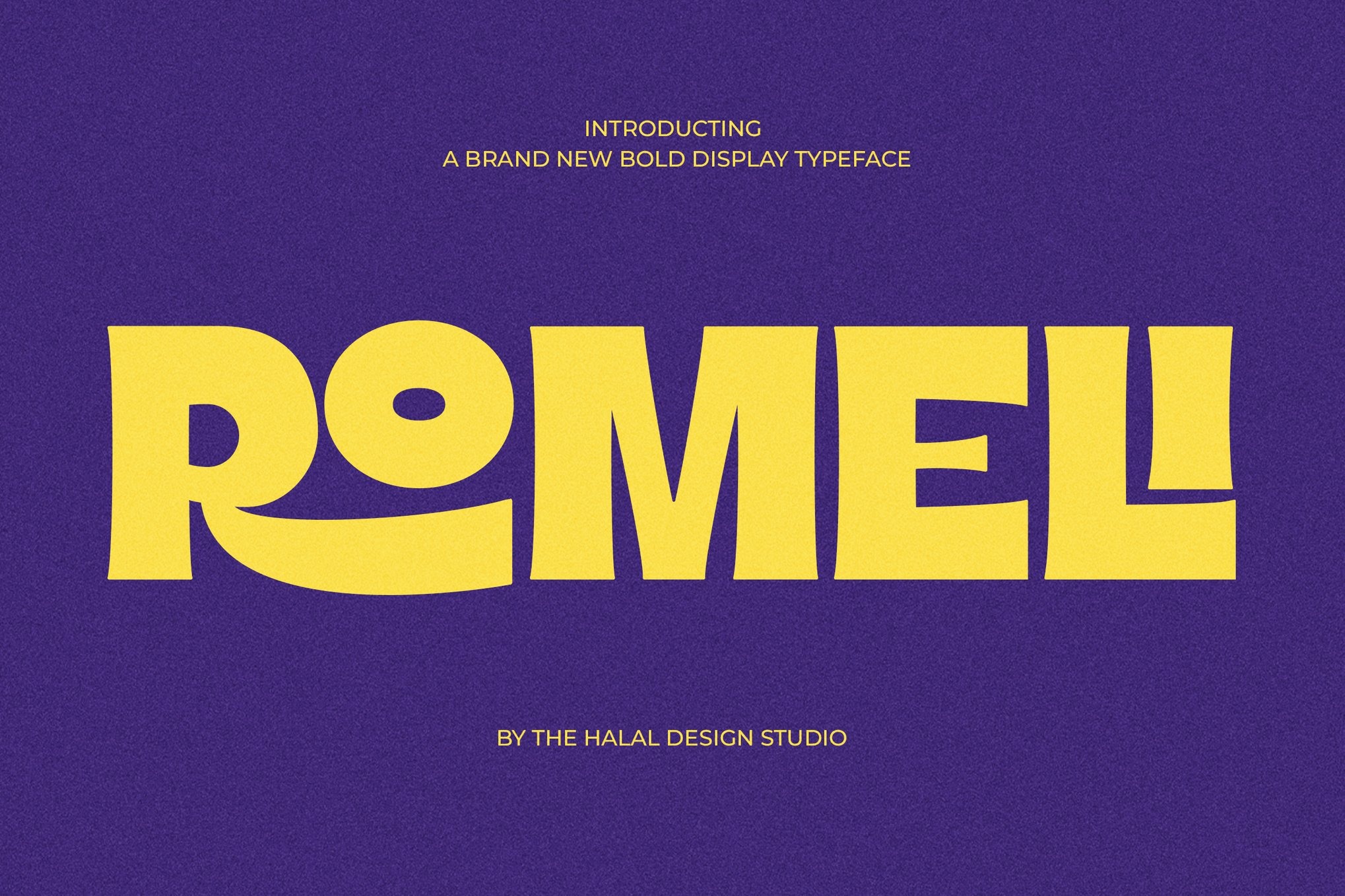
Romeli – Bold Diplay Font
Romeli – Bold Diplay Font is a stylish typeface that enhances visual appeal and works effortlessly in many design contexts. Romeli is a bold display typeface designed to make a powerful visual statement. Featuring chunky handcrafted letterforms, playful curves, and distinctive ligatures, this font is perfect for logos, branding, posters, packaging, headlines, merchandise, social media graphics, and eye-catching display designs. Its expressive personality brings energy and creativity to both modern and retro-inspired projects.
Whether you’re creating bold branding, fun editorial layouts, or standout marketing materials, Romeli delivers strong impact with excellent readability. Complete with multilingual support, ligatures, and alternates, this typeface gives you the flexibility to create unique and memorable typography with ease.
Bold Display Style – Chunky, playful, and handcrafted letterforms
Ligatures & Alternates – Enhanced typographic flexibility
Multilingual Support – Supports multiple languages